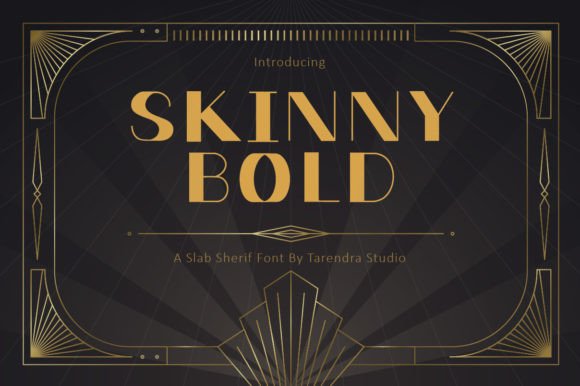
Prepare to be awestruck by the Skinnybold font, a remarkable creation by Juliolailydomingo that seamlessly blends art deco elegance with a touch of handwritten charm. This slab serif font is more than just a font; it's an artistic statement that transforms your words into captivating works of art.
Whether you're a seasoned crafter seeking to add a touch of sophistication to your handmade creations, a digital designer yearning for a font that speaks volumes, or a presentation wiz looking to leave a lasting impression, Skinnybold has got you covered. Its versatility extends beyond these realms, making it an ideal choice for greeting cards that evoke a sense of nostalgia and uniqueness.
Unleash your creativity and let Skinnybold take center stage in your crafting projects. Its distinct character adds a touch of elegance to any medium, whether you're designing scrapbook pages, creating personalized gifts, or adding a touch of charm to your home décor.
For digital designers, Skinnybold is a treasure trove of possibilities. Its art deco roots make it a perfect fit for projects seeking a vintage or retro aesthetic. Use it to craft eye-catching logos, elegant invitations, or captivating social media graphics that stand out from the crowd.
And for those who thrive on the art of presentation, Skinnybold is your secret weapon. Its strong personality commands attention, ensuring your slides leave an unforgettable mark on your audience. Whether you're presenting business strategies, project updates, or educational content, Skinnybold elevates your words and transforms them into a visual feast.